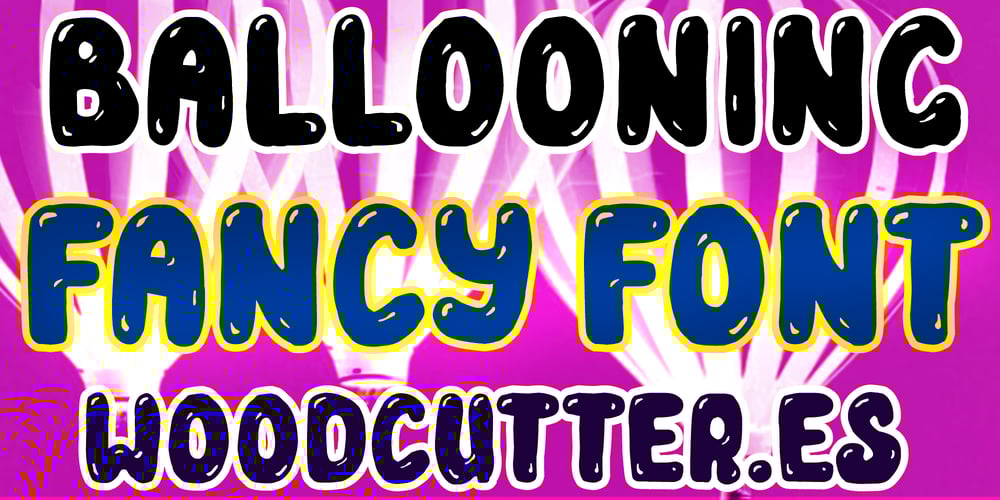
Ballooning Font Family was designed by Jordi Manero and published by Woodcutter. Ballooning contains 1 styles and family package options. “Ballooning” is a fun typeface that mimics air balloons in every letter. With soft and rounded contours, this typeface brings a sense of lightness and joy to any design. Perfect for children’s projects, parties, and festive events, “Ballooning” captures the playful and carefree essence of balloons. Additionally, it includes accents, making it versatile for various languages and applications. Whether for invitations, posters, or headers, this typeface ensures a touch of fun and creativity.–Uppercase